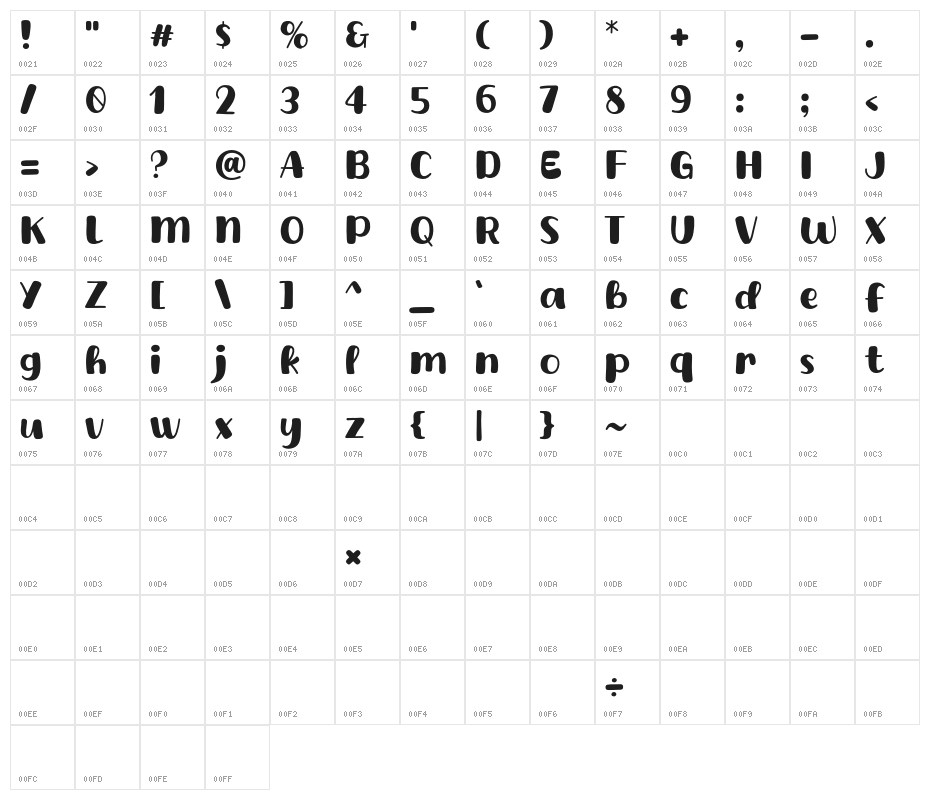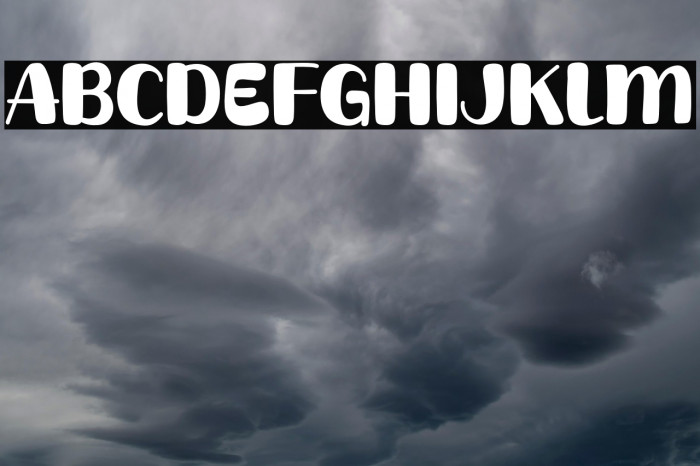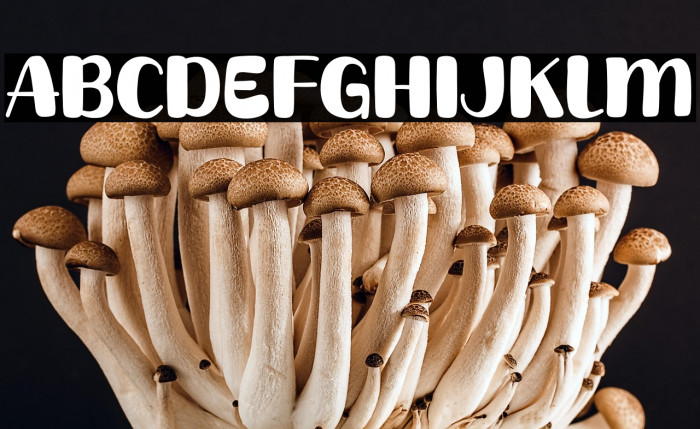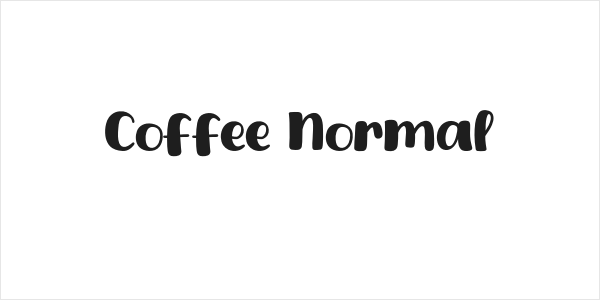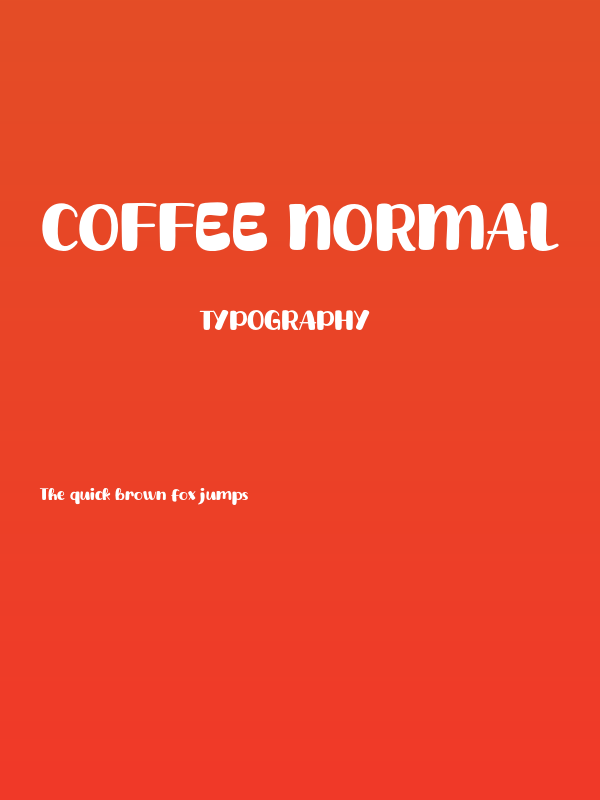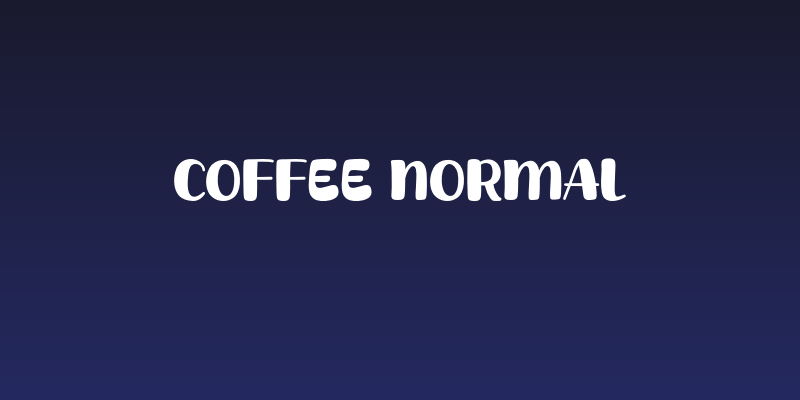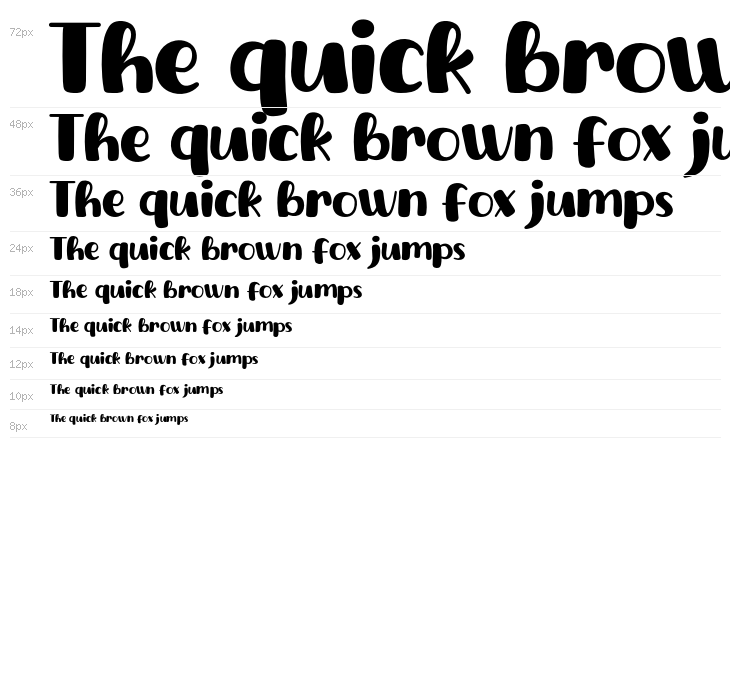
Coffee Normal Font
Coffee Normal Description
This font features a playful and bold style with rounded edges and a consistent stroke width, giving it a friendly and approachable appearance. The characters are slightly condensed, which adds to its unique charm. The uppercase letters are bold and prominent, while the lowercase letters maintain a consistent flow, enhancing readability. Numbers and special characters are designed to match the overall playful aesthetic, making it suitable for creative and informal applications. The font's style is reminiscent of hand-drawn lettering, adding a personal touch to any project.
| Width | Condensed |
| Overall Style | Playful |
| Proposed Projects | Ideal for children's books, playful branding, greeting cards, and creative posters. |